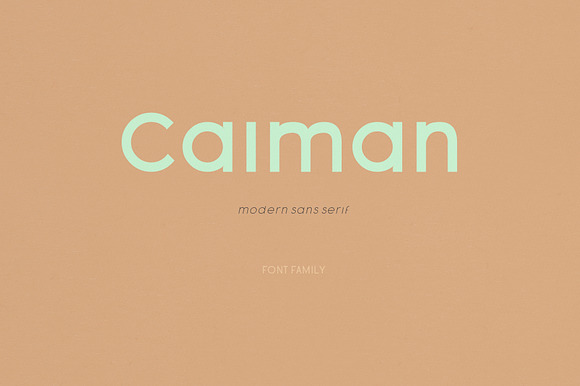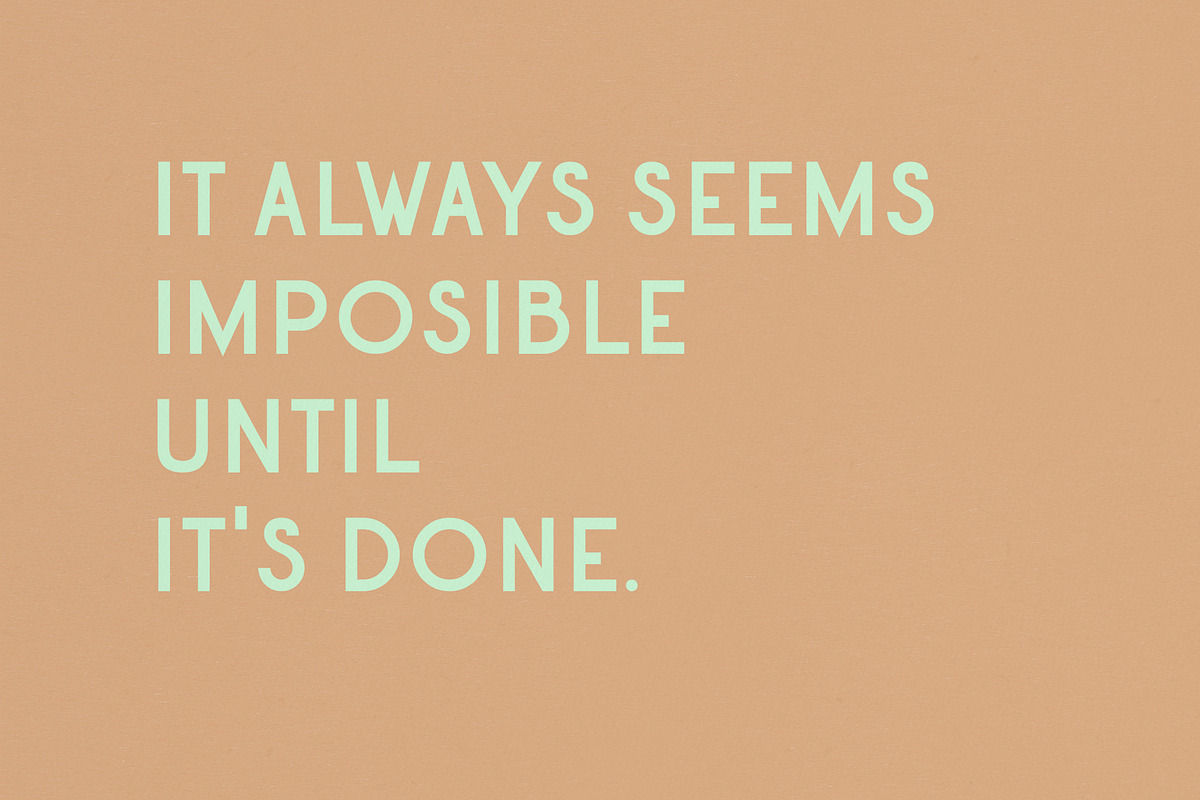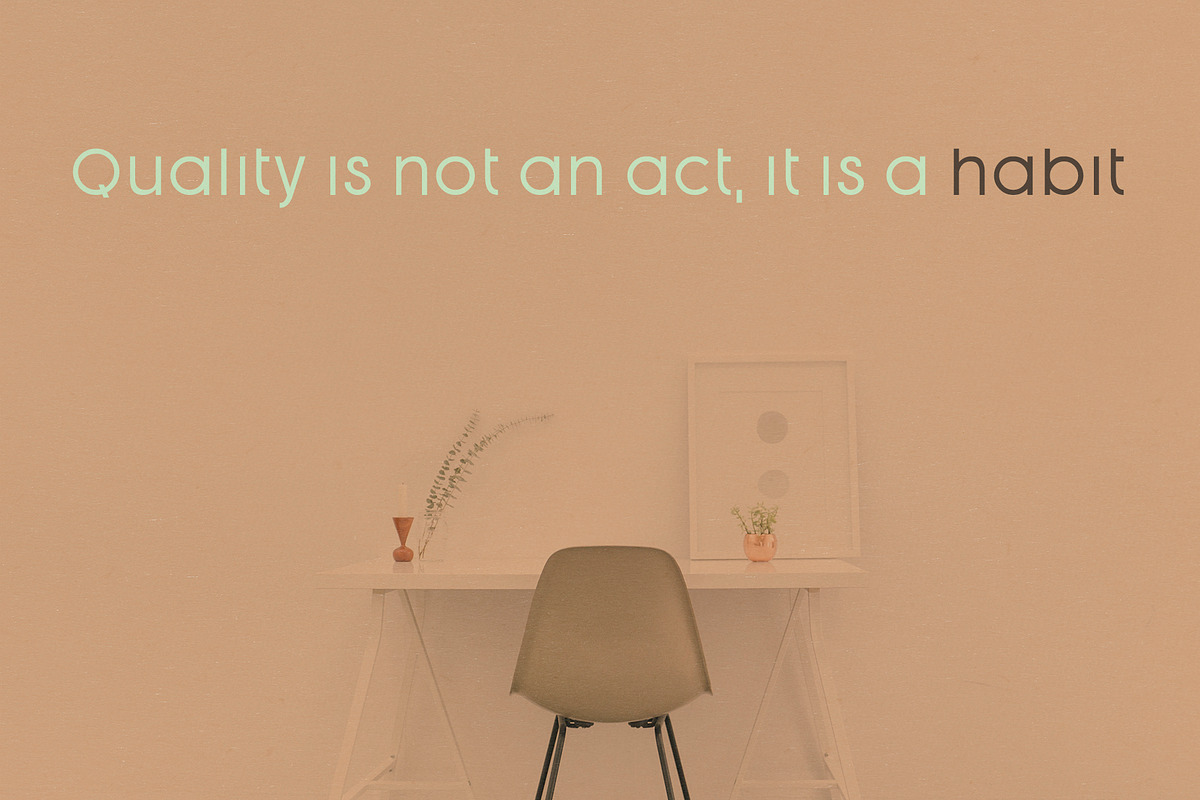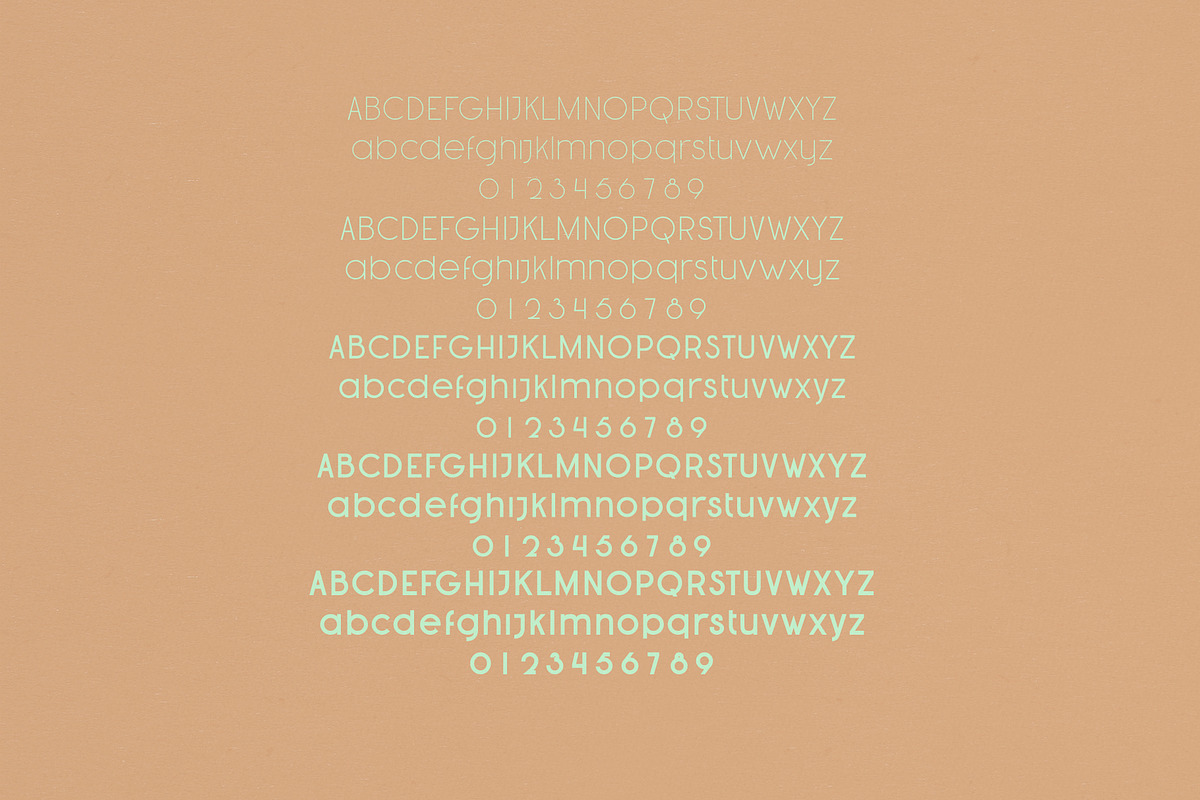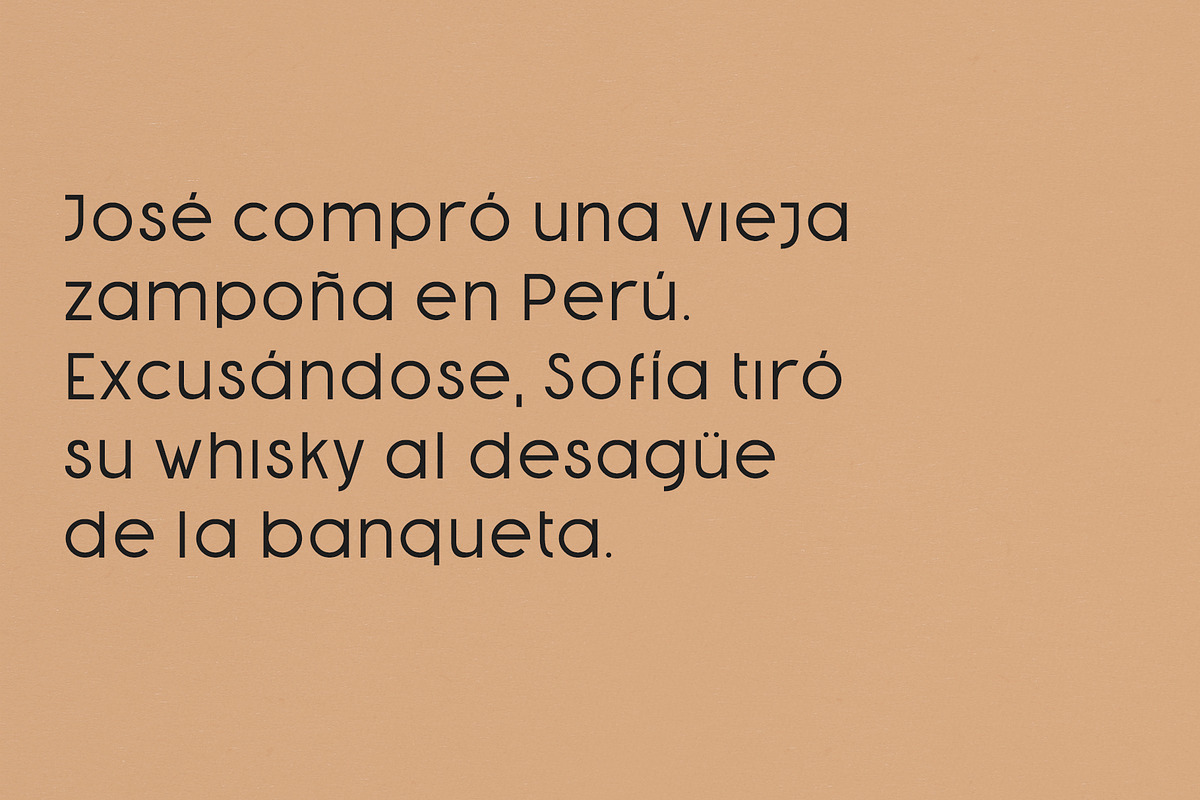
Caiman Font Family
Caiman is a modern sans serif font family. Classic sans design with a little bit of a modern touch makes it perfect for up-to-date corporate designing.
Caiman Font Family by Jane's Den fits naturally into Branding, posters, packaging, typography.